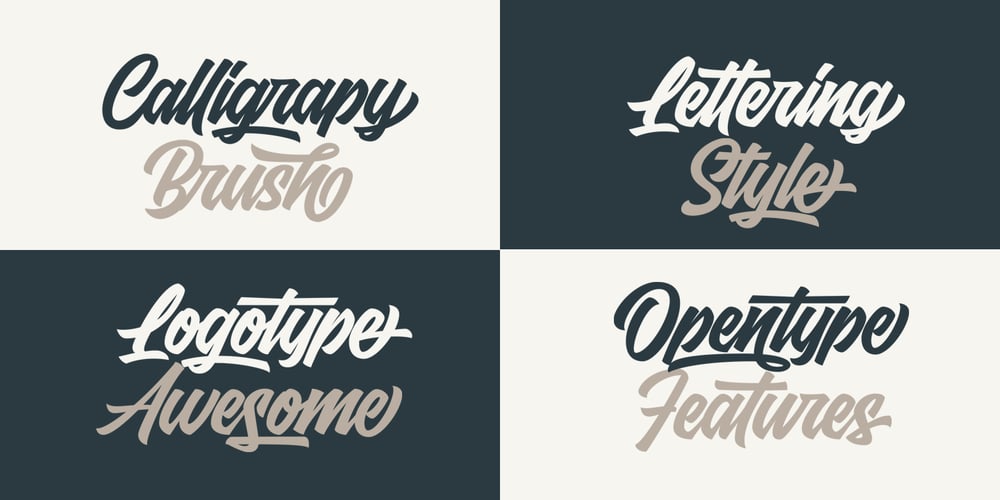
Fresty
Fresty font
Fresty Font Family was designed by Bangkit Tri Setiadi and published by Blankids. Fresty contains 1 styles and family package options. Fresty is awesome for branding and logotype, Fresty has the impression of modern, trendy and elegant. Fresty has 376 Glyphs with PUA encoded and many alternative character & OpenType features so you can mix and match to create the look you want. Fresty includes 22 Multilingual Support (Afrikaans , Albanian , Catalan , Czech , Danish , Dutch , English , Estonian , Finnish , French , German , Hungarian , Icelandic , Italian , Norwegian , Polish , Portugese , Slovak , Slovenian , Spanish , Swedish , Zulu)